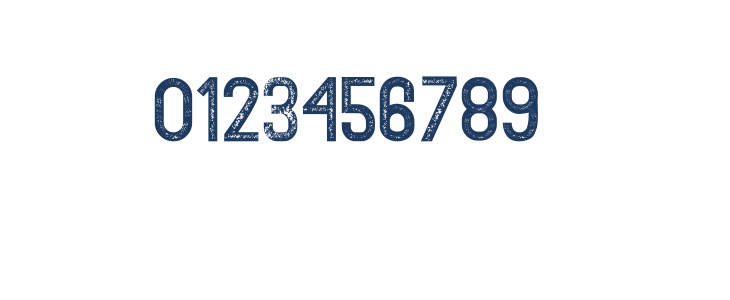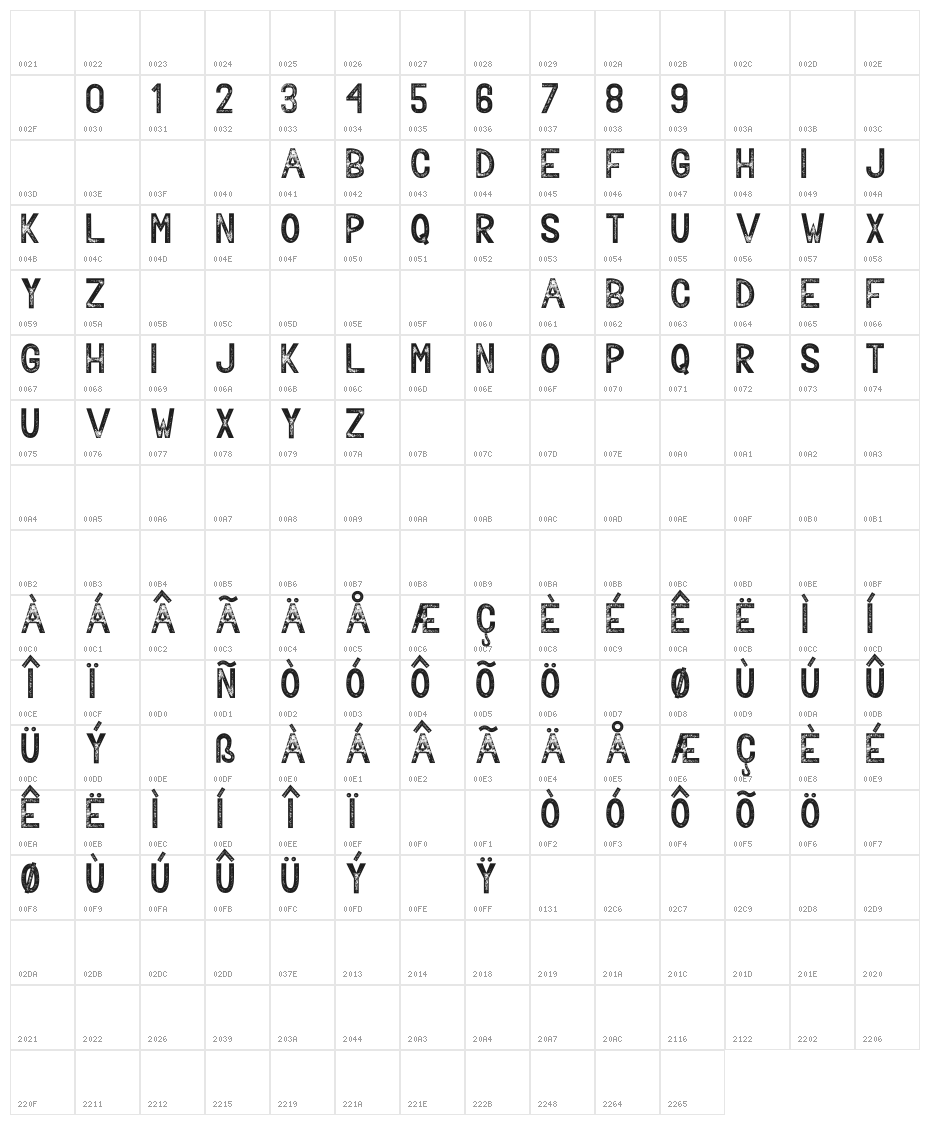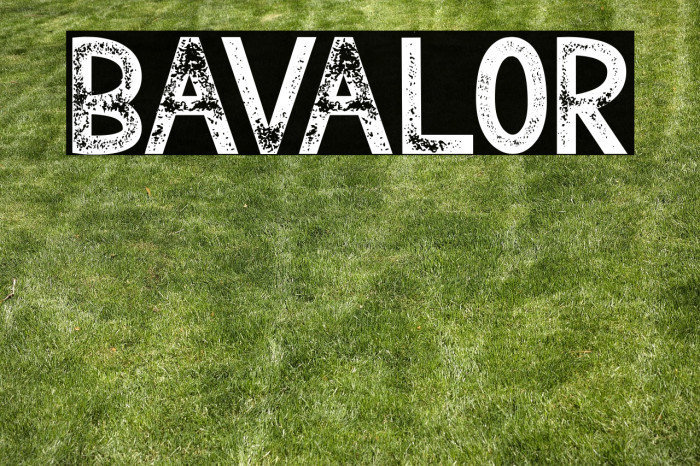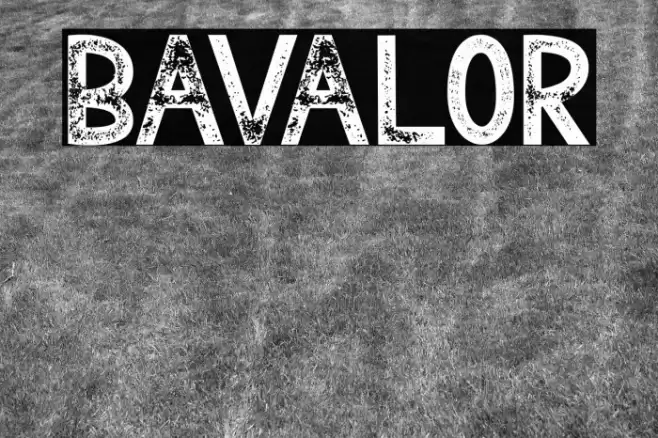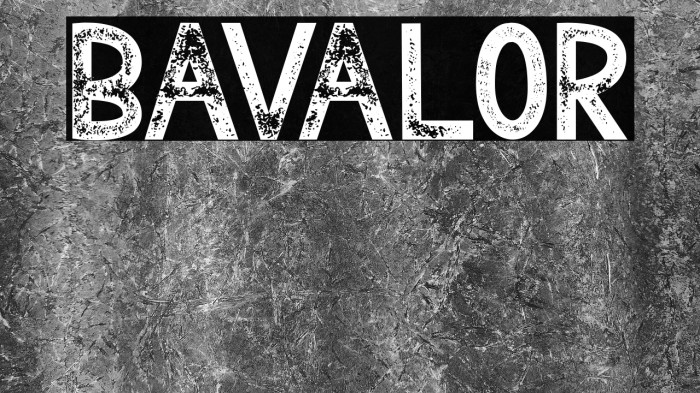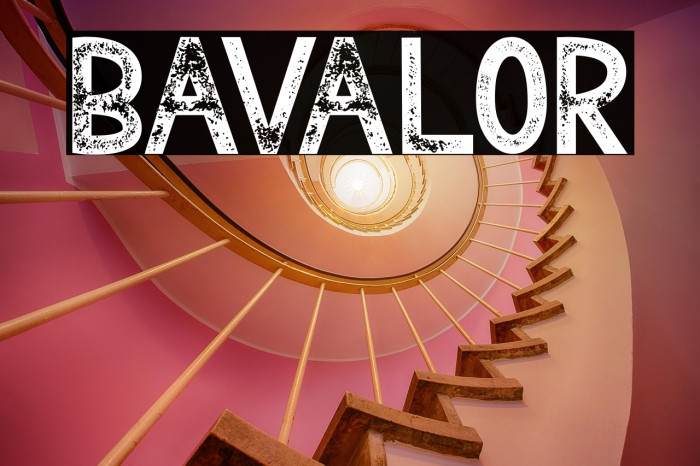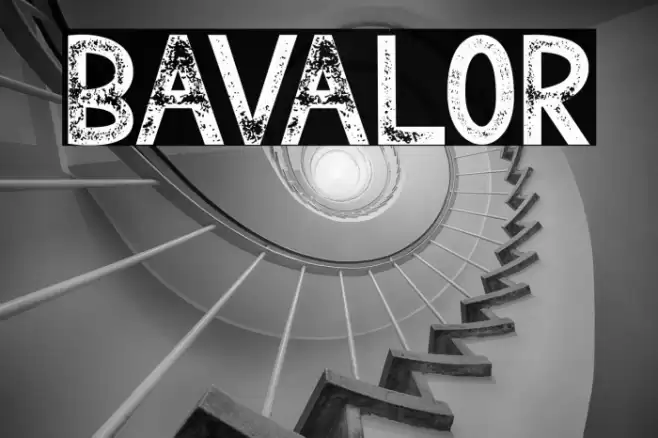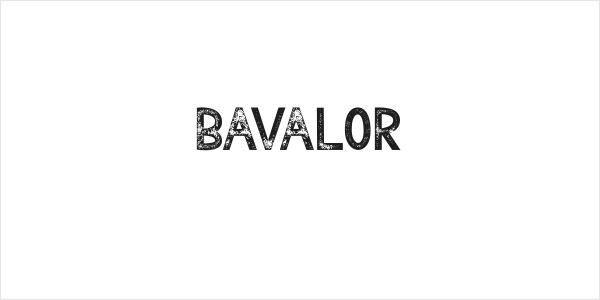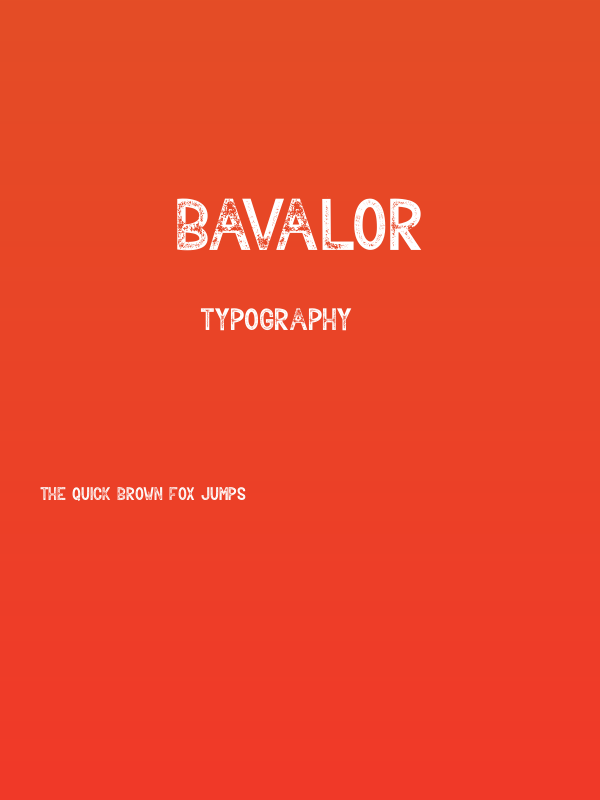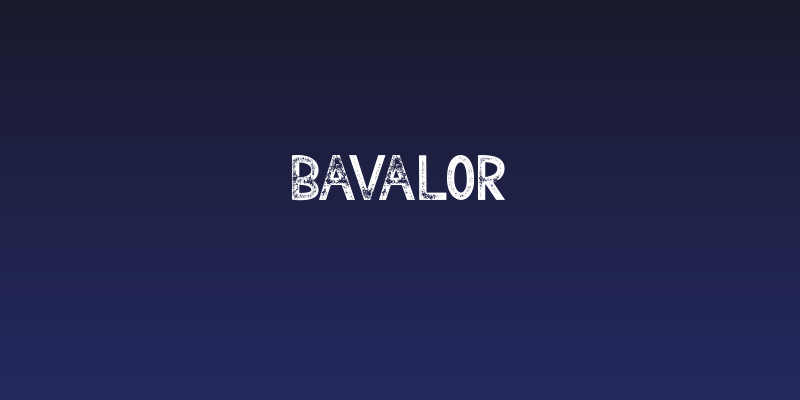
Bavalor Font
Bavalor Description
This font features a bold, distressed style with a textured appearance, giving it a rugged and vintage feel. The uppercase letters are prominent and impactful, making it ideal for attention-grabbing designs. The numbers and special characters maintain the same distressed look, ensuring consistency across all elements. The font's unique texture adds depth and character, making it suitable for projects that require a touch of nostalgia or a handcrafted aesthetic. Its boldness ensures readability while the distressed effect adds a layer of visual interest.
| Proposed Projects | Ideal for posters, logos, branding, and any design needing a vintage or rugged look. |